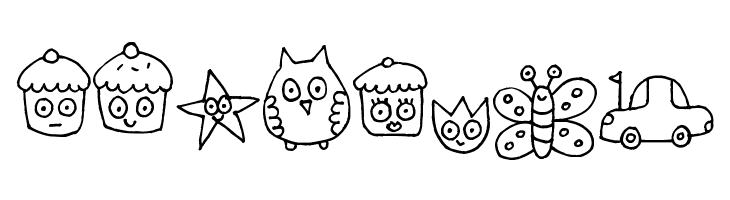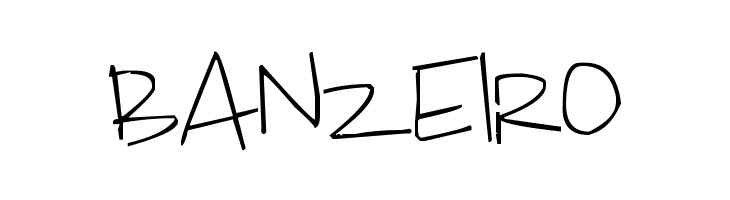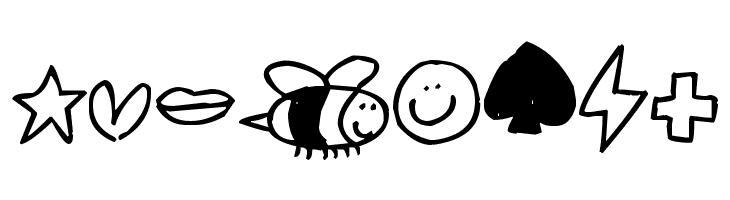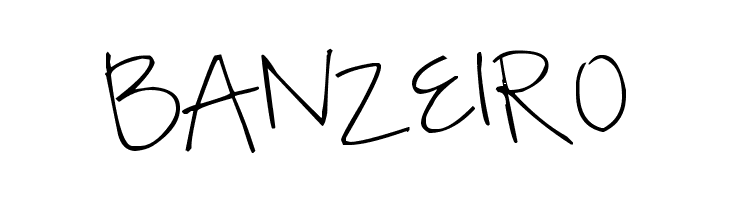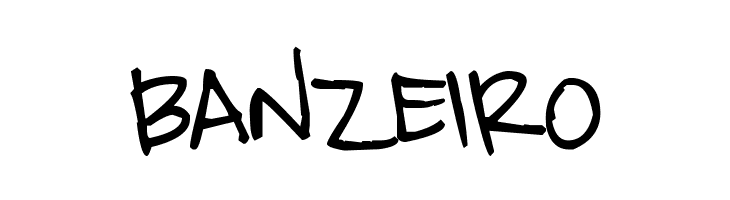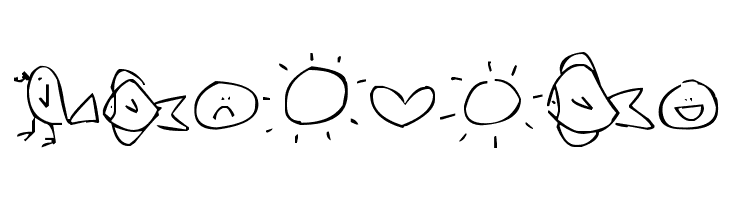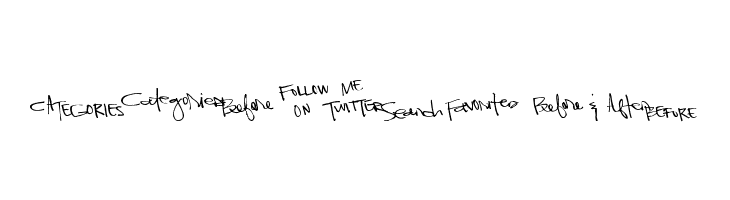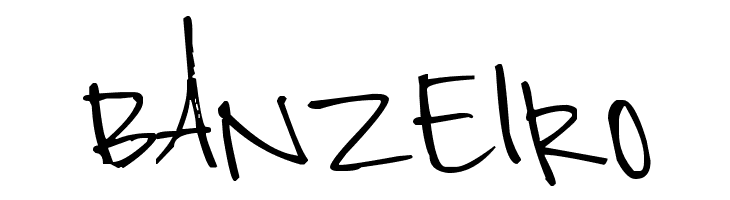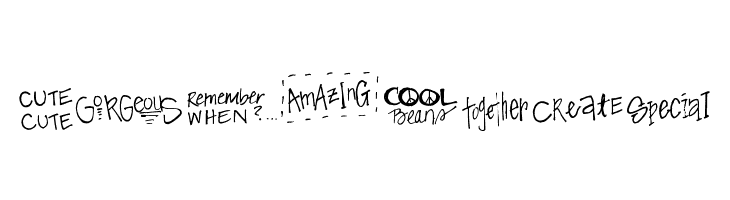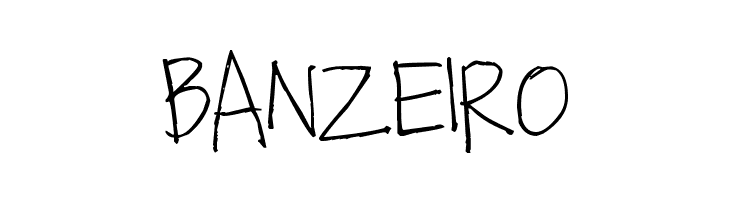
• Pea Jay
• Pea Jelene's Doodles
A whimsical collection of playful doodle-style illustrations.
• Pea Jenna
A playful, casual handwritten font with lively, uneven strokes.
• Pea Jenny Roman
A playful, handwritten font with dynamic and irregular strokes.
• Pea Jess
A casual, playful handwritten font with a dynamic and spontaneous style.
• Pea Jia
A playful, handwritten font with a casual and dynamic style.
• Pea Jiawei Doodles
A playful and whimsical collection of hand-drawn doodles with bold strokes.
• Pea Jo
• Pea Joanike Handschrift
A playful, casual handwritten font with fluid, slightly irregular strokes.
• Pea Jokilyn
A playful, casual handwritten font with irregular strokes and a whimsical style.
• Pea Jokilyn Doodles
A whimsical doodle font with playful, hand-drawn elements and a casual, sketch-like style.
• Pea Joraanstad
A lively, handwritten-style font with a casual and energetic feel.
• Pea K*Rayn
A playful, casual handwritten font with irregular, free-flowing letterforms.
• Pea Kadee
A playful, casual handwritten font with dynamic, flowing strokes.
• Pea Kadee's Blog
A playful, casual handwritten font with dynamic, irregular strokes.
• Pea Kadee's Calendar
A playful, handwritten font with a casual and informal style.
• Pea Kadee's Greetings
A playful, casual handwritten font with a natural, personal touch.
• Pea Kadee's LOVE Sentiments
A playful, handwritten font with a whimsical and romantic touch.
• Pea Kassidy
A playful, handwritten font with a whimsical and informal style.
• Pea Kathryn
A playful, handwritten font with bold, irregular strokes.
• Pea Katie Jo
A playful, handwritten font with a casual and dynamic style.
• Pea KatieH